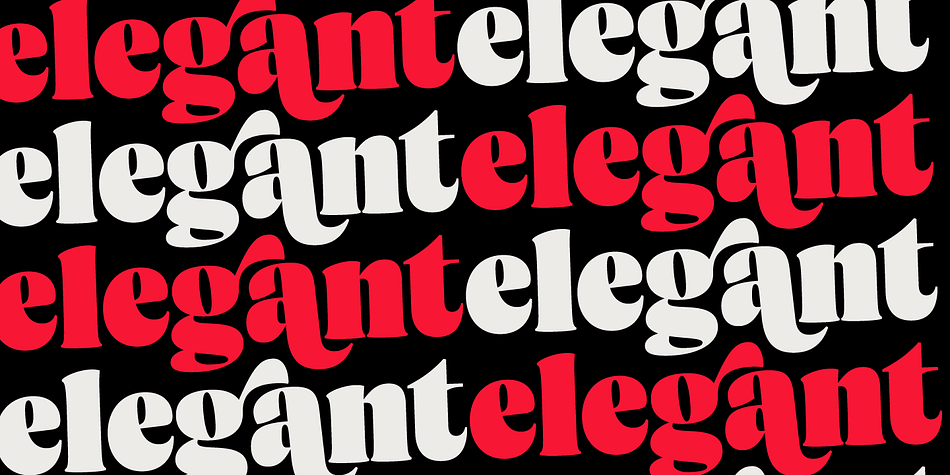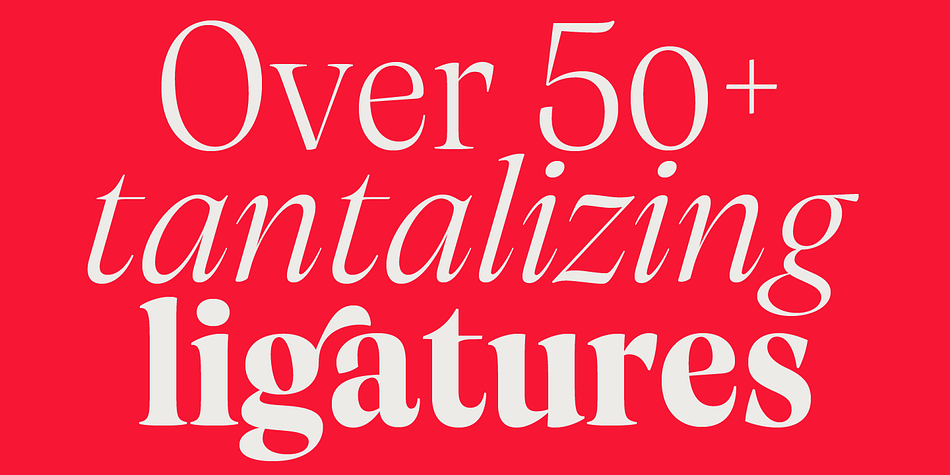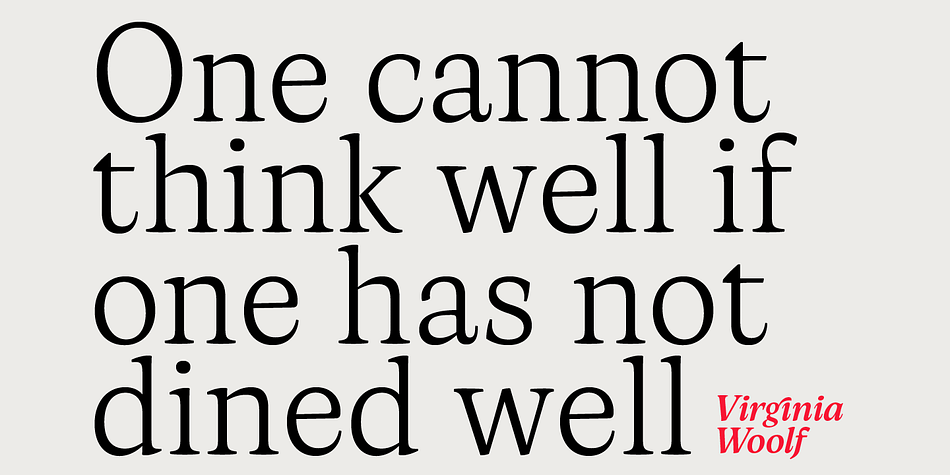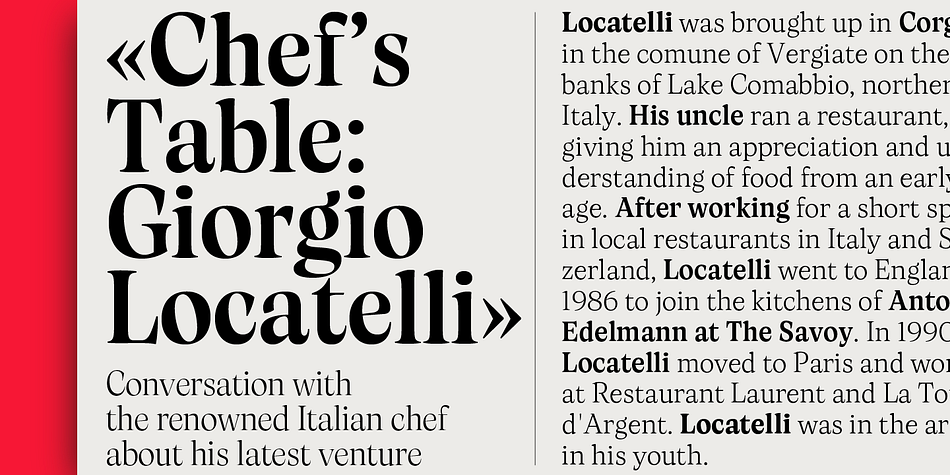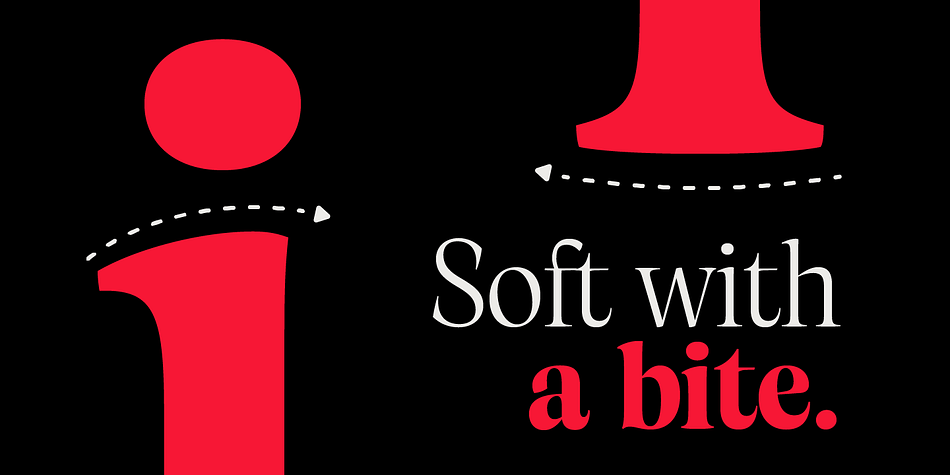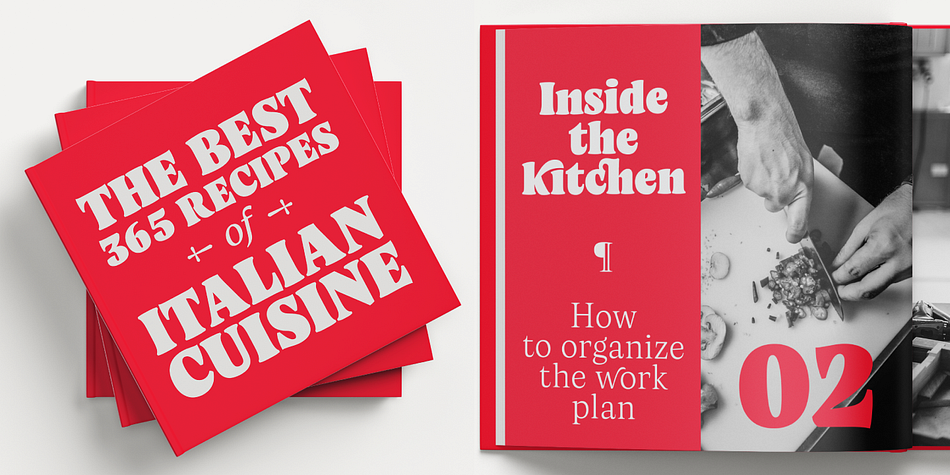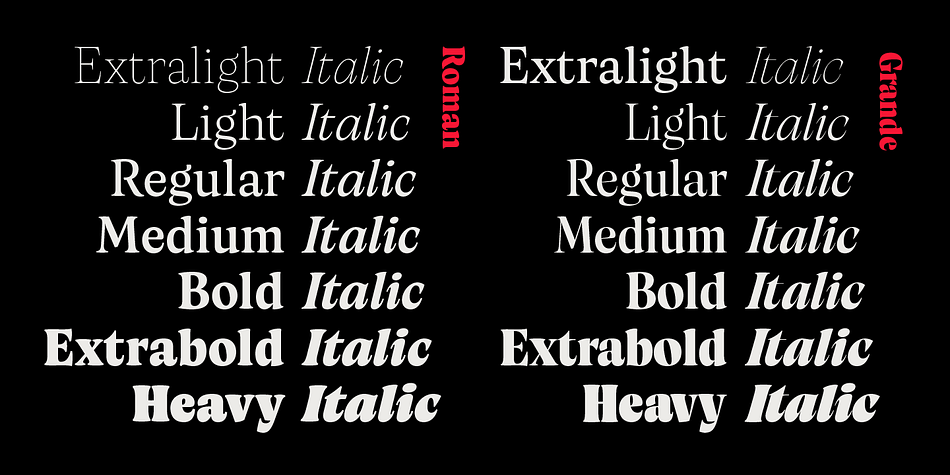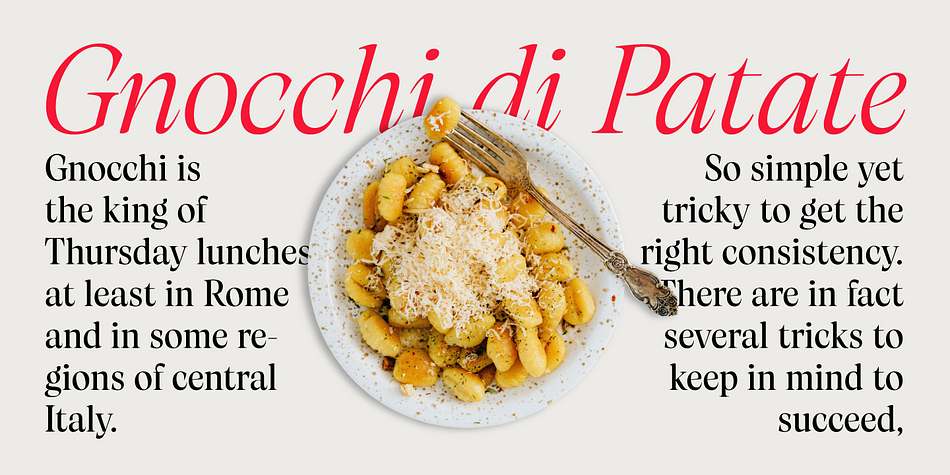
Artusi
Designed by Francesco Canovaro and Mario De Libero, Artusi is a display serif and serif font family. This typeface has thirty styles and was published by Zetafonts.
Pellegrino Artusi was a celebrated Italian food writer, who is credited with the creation of one of the most influential cookbooks in the history of Italian cuisine. Taking inspiration from his legacy, Francesco Canovaro decided to work on a typographic homage to the delicacy and finesse of Italian traditional cuisine.
Aptly named Artusi, the typeface is an enchanting combination of traditional Italian style, contemporary refinement and a playful touch of innovation. It is a transitional serif typeface with both text and display versions, developed on a wide range of seven weights and including a huge range of alternates, open type features and ligatures.
Each weight of Artusi works like a different course in a balanced meal. Lighter weights are our starters, with their high contrast between thicks and thins, delicate curves, balanced proportions and subtle spiky serifs. The main course are naturally the regular and bold weights, where traditional Italian old style is enriched with a peppery kick of modern details. For dessert, the heavy weights offer luscious curves, opulent calligraphic swashes and eye-catching details, suitable for packaging and logos.
When it comes to typography, let Pellegrino Artusi’s legacy inspire you. From packaging to web pages, Artusi typeface will bring a feeling of tradition, craft and quality to any project. Because, as Pellegrino would say, “To make a great impression, you have to choose the finest ingredients”... Buon Appetito!